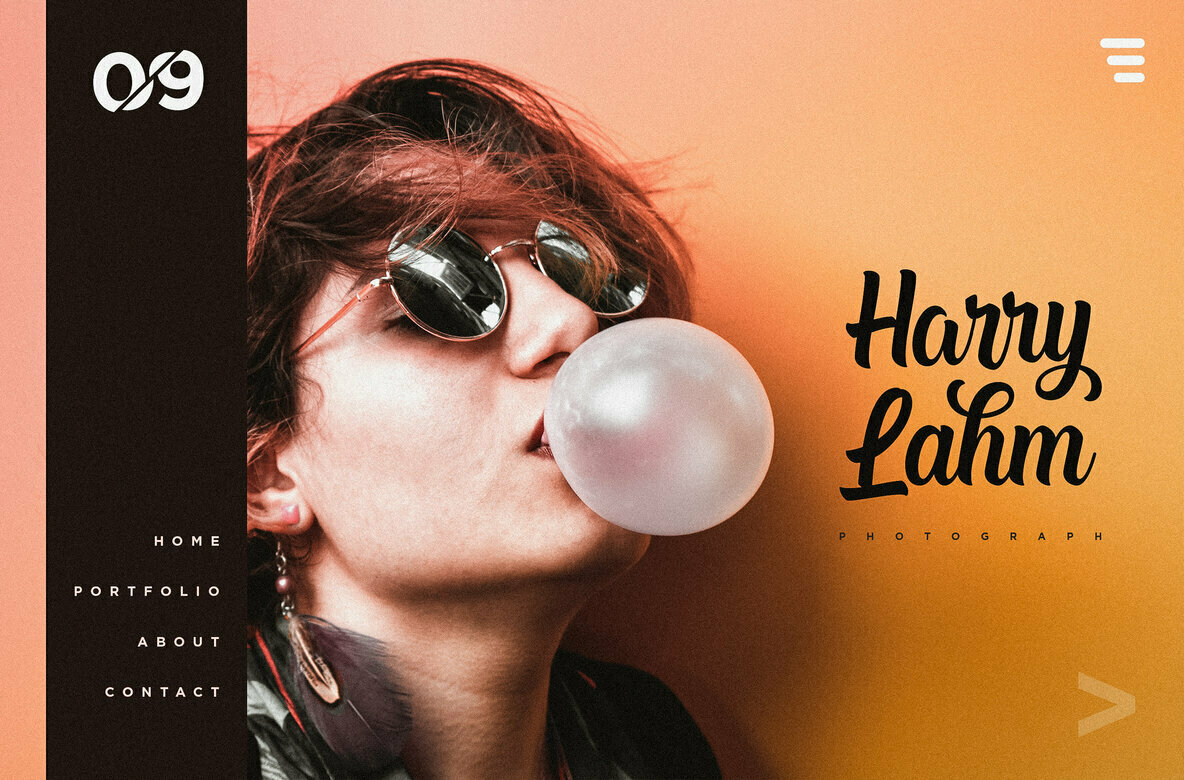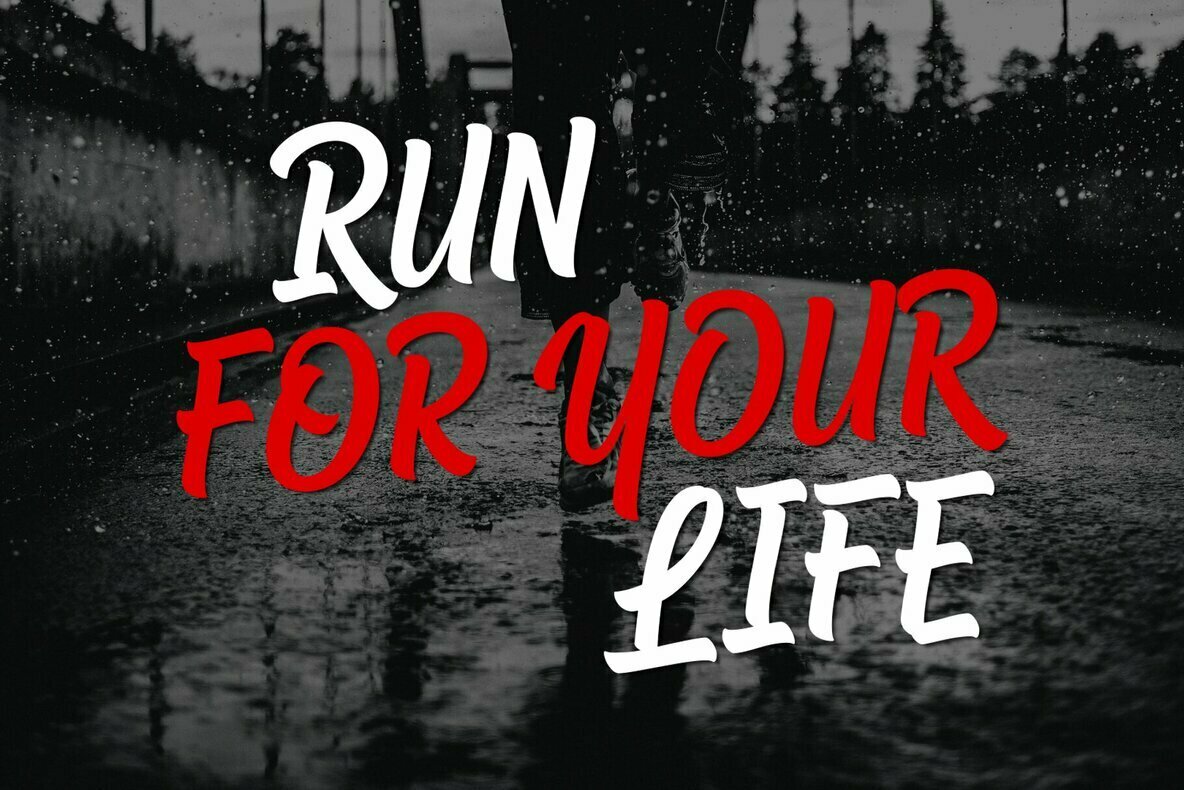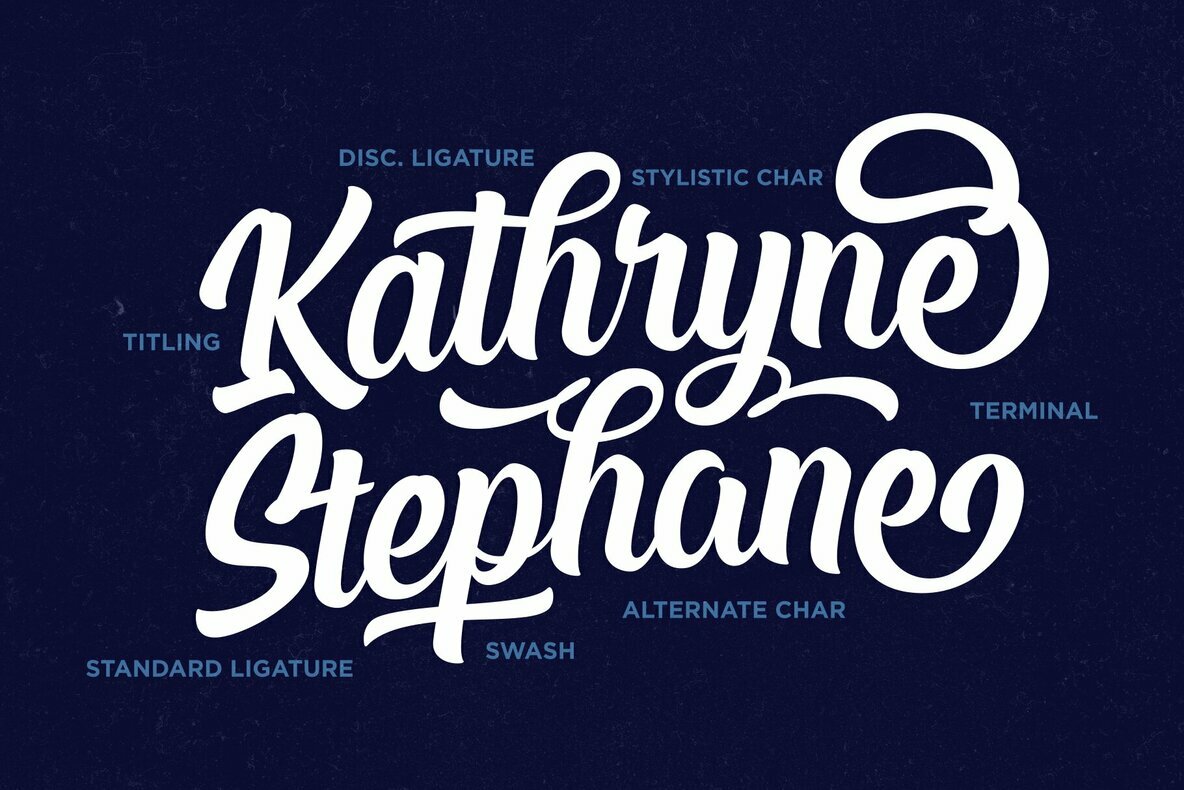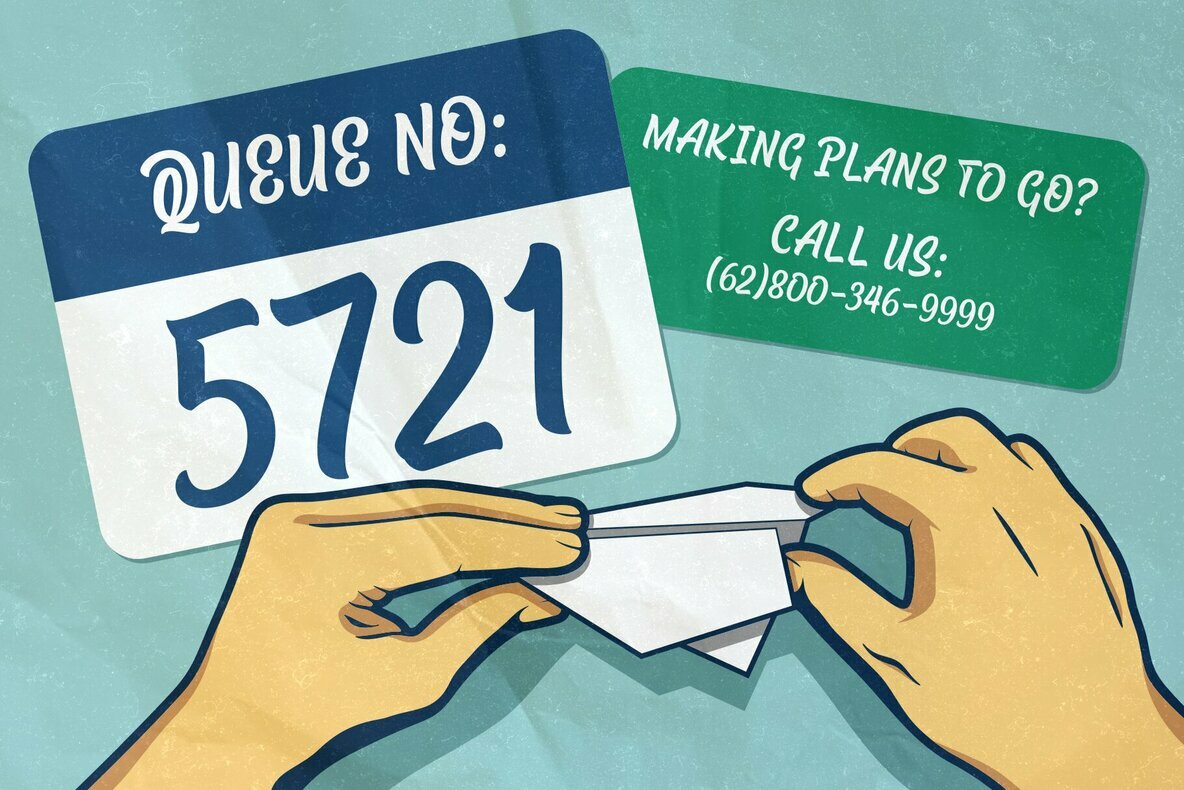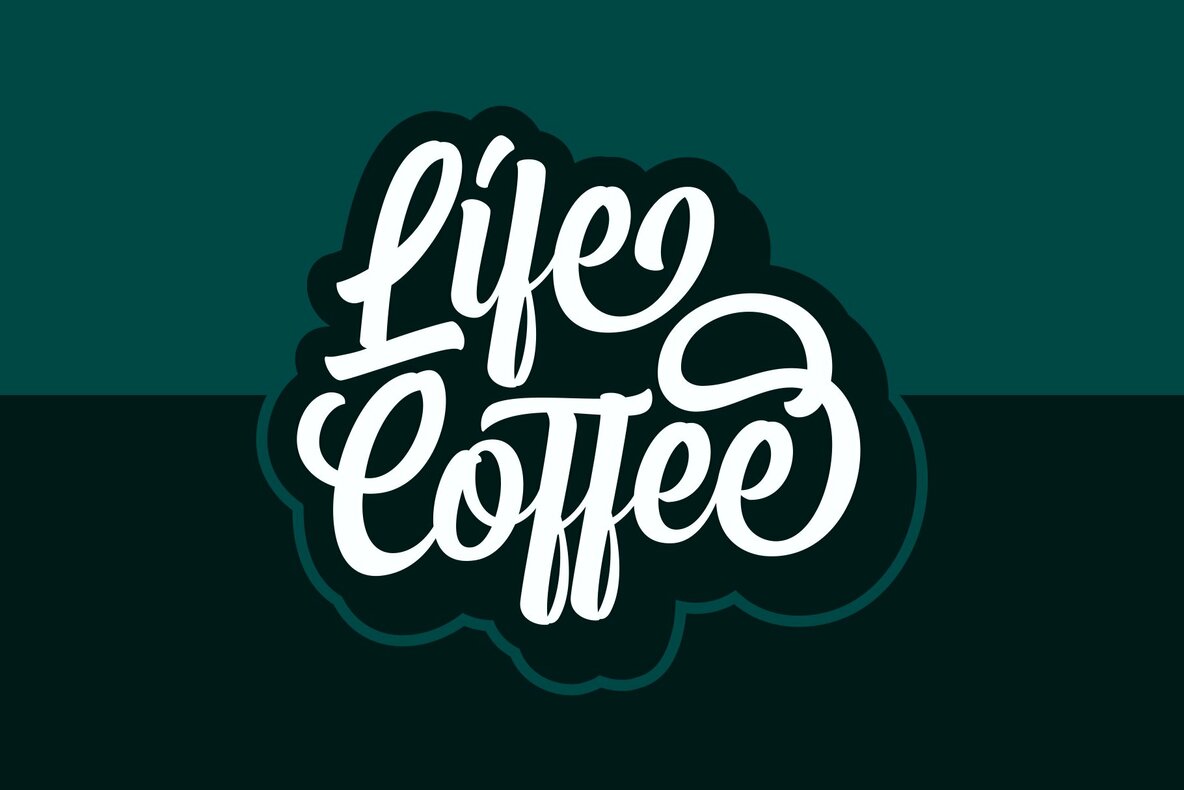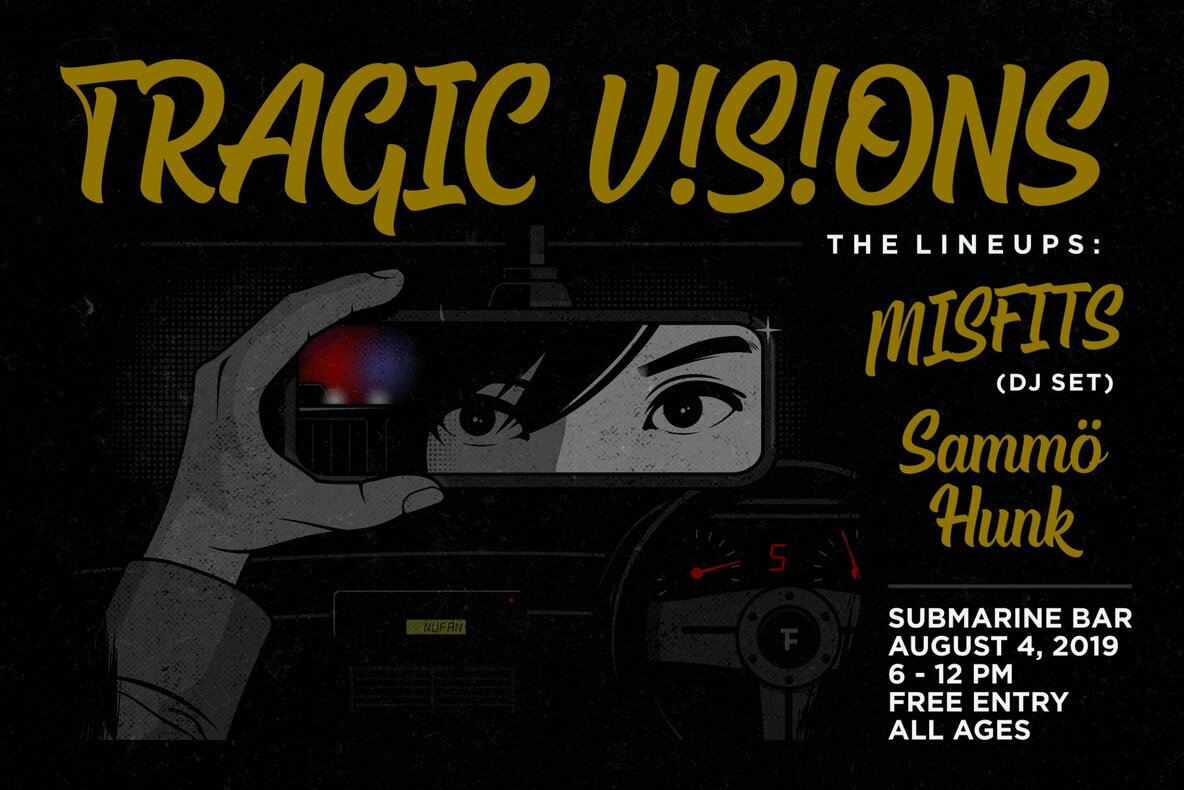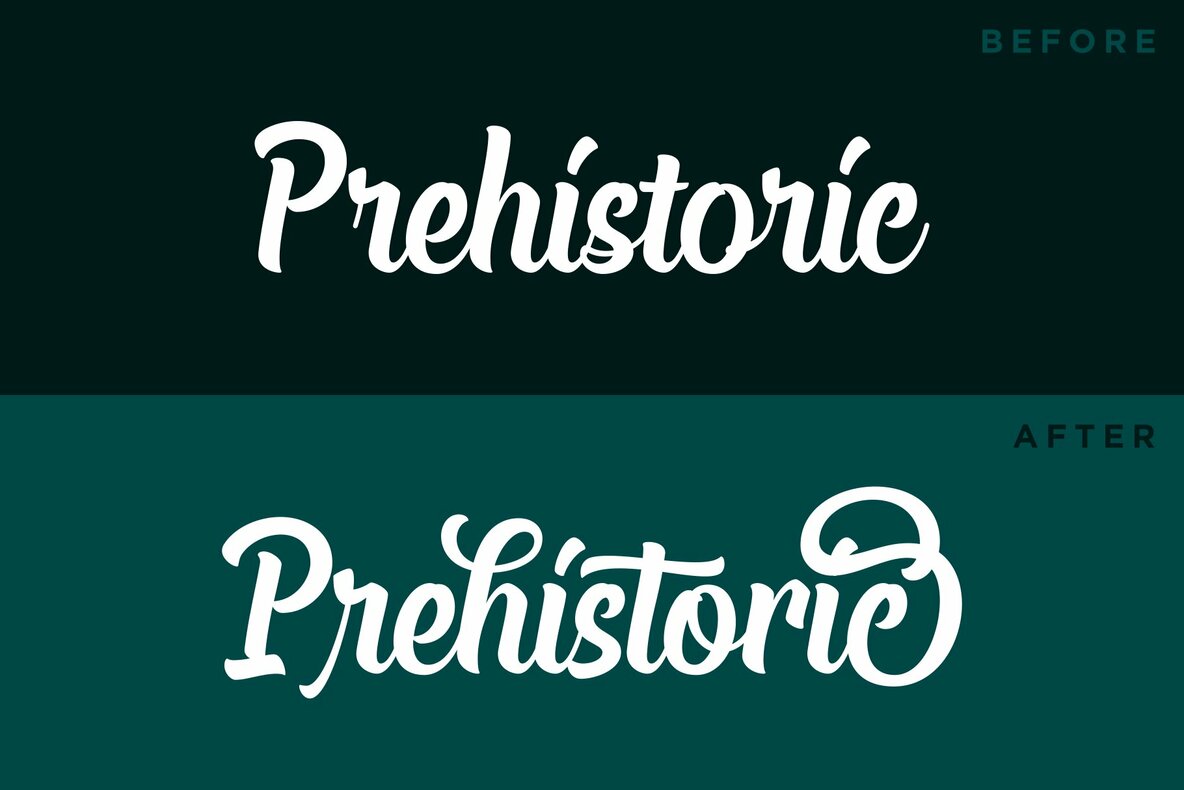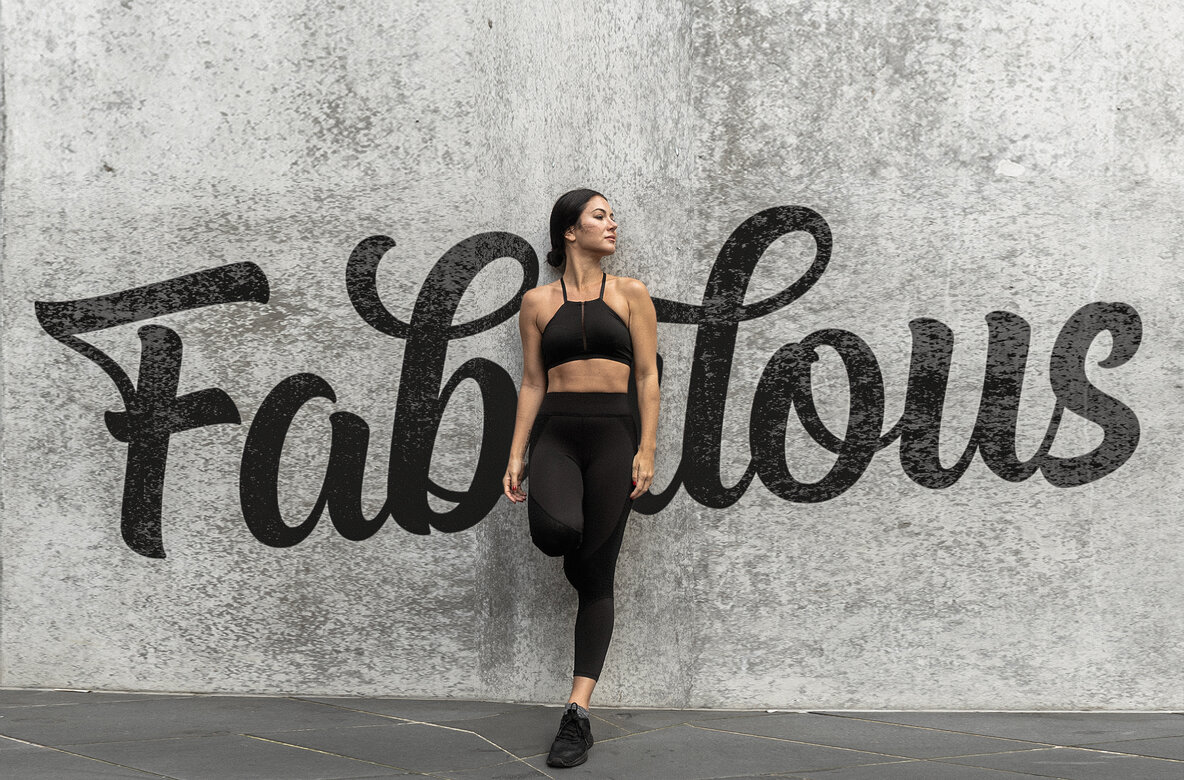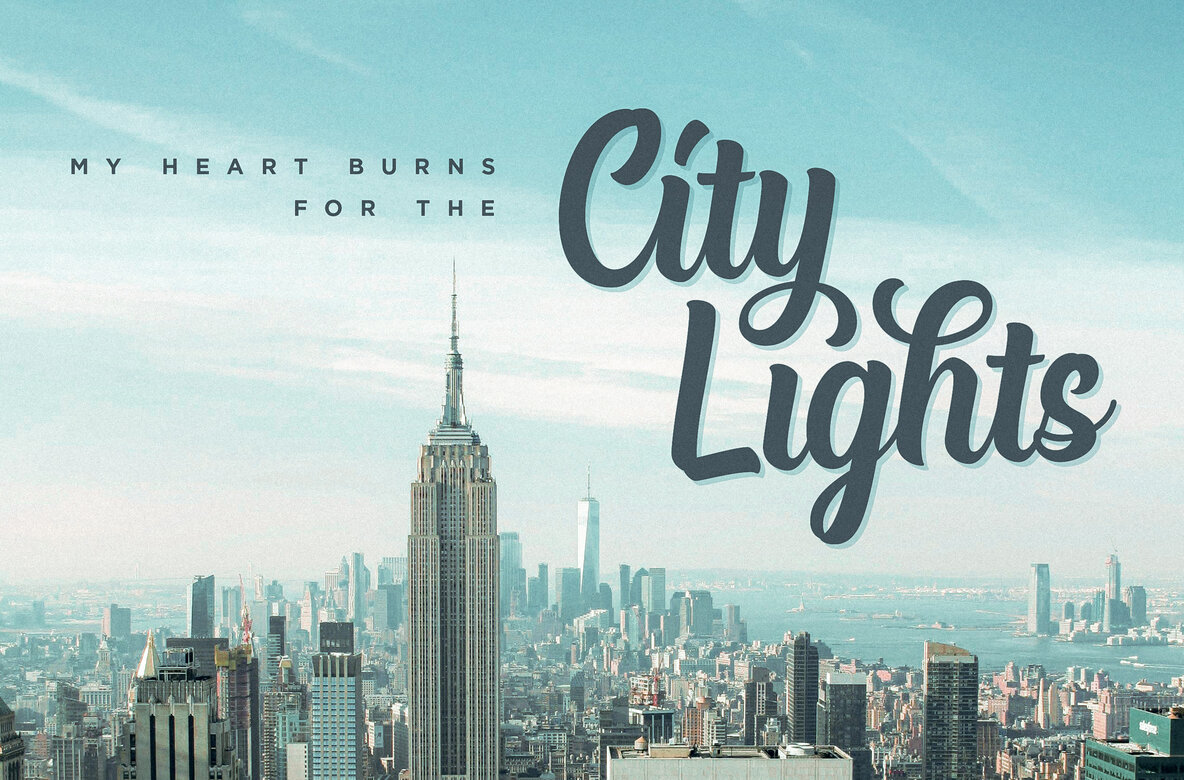
Chuck Noon Script Font
Chuck Noon Script
Chuck Noon Script is a clean and bold script font that offers you a natural hand-lettering experience. Handcrafted and digitally checked with high attention to the details, we're a sucker for clean lines and crispy edges too, just like you. Its dynamic letterforms work like magic, whether you go all caps or using it normally as a script. Suits best for logotype, poster/t-shirt designs, food/beverage labels, hipster quotes, greeting cards, wedding invitations, and many more.
Consists of +400 glyphs (includes some OpenType Features like standard and discretionary ligatures, special-alternate characters, contextual alternates, swashes, initial-terminal forms, multilingual characters, etc), This font is a great addition for your designing arsenal. PUA encoded too, so you can get the access to special characters thru Character Maps and Font Book, no special software needed.